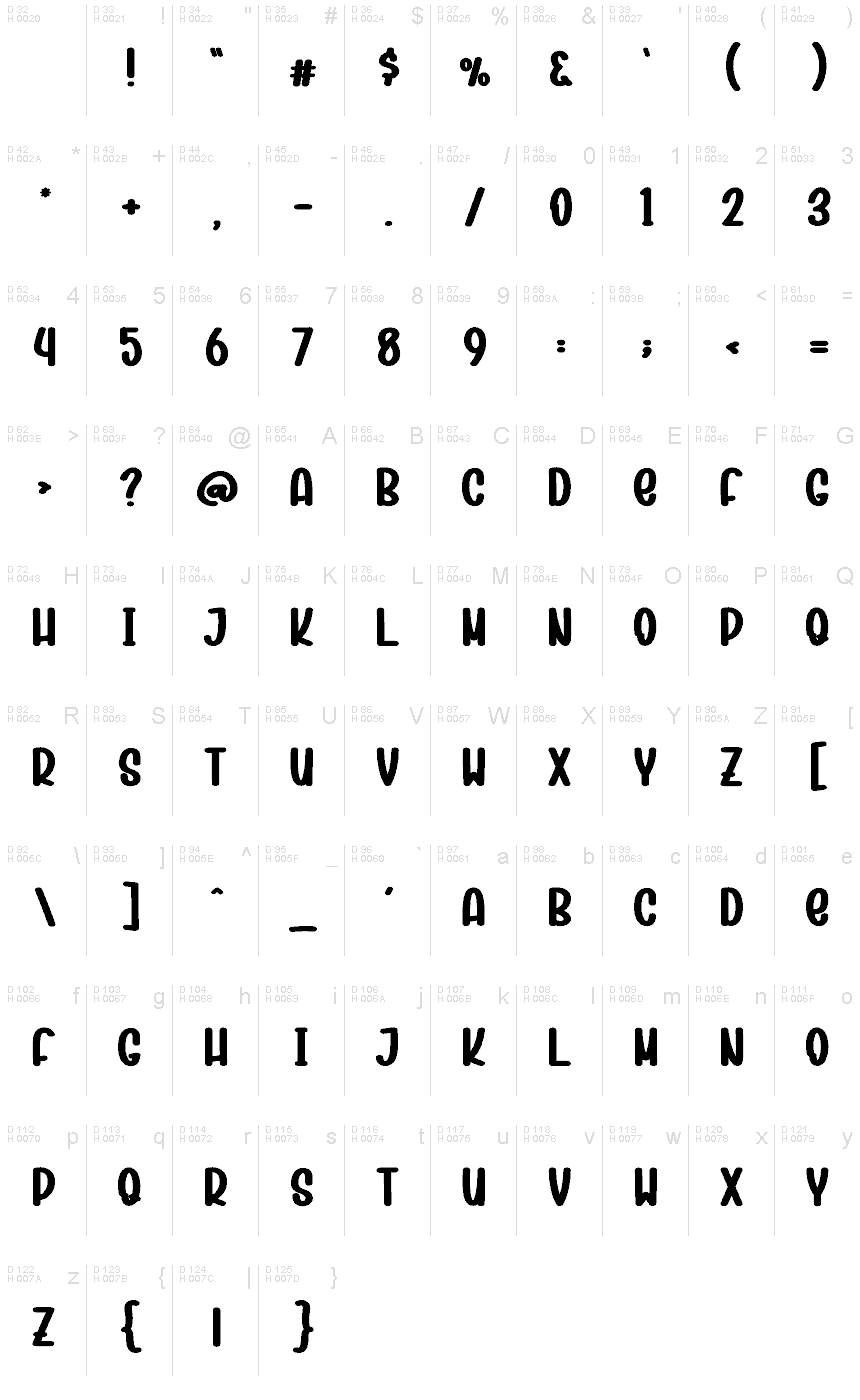
Scary Season
Scary Season font by Scratchones is a handwritten typeface with a hand-drawn appearance and spooky vibe. Quirky shapes and a slightly uneven baseline give the font a whimsical aesthetic that makes it instantly captivating at first glance.
The free handwritten font is great for horror posters, Halloween invitations, trick-or-treat candy labels, haunted house signs, creepy product packaging, playful social media visuals, magazine headlines, movie titles or book covers. Use it to add chilling suspense in video games.